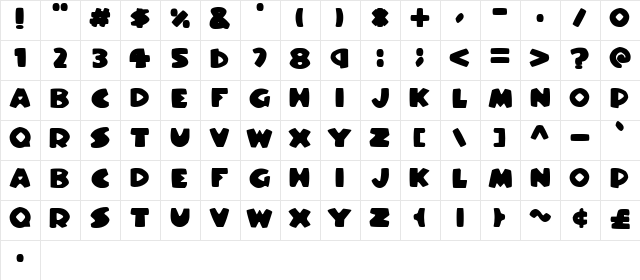
Stompy Italic
Italic ·  Joseph Dawson ·
DesignerJoseph Dawson
Design Context for Stompy Typeface
Stompy is a composed and adaptable typeface that performs quietly and consistently across a wide range of design contexts. Its italic angle brings a sense of urgency and motion to the letterforms.
Pro Tip: Try Stompy for annotation and caption copy alongside an upright companion — the contrast in angle creates a dynamic but ordered typographic system.